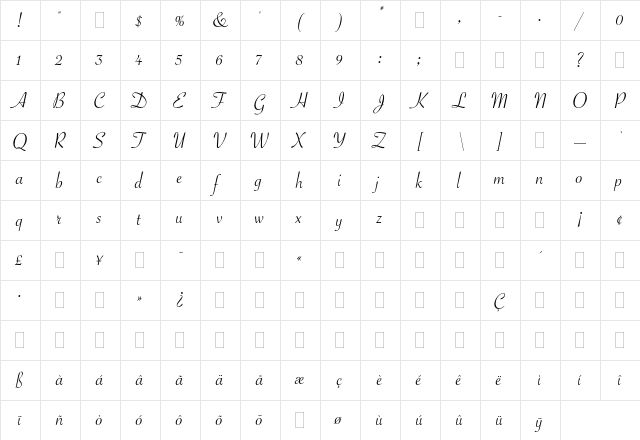
Savoye Plain
Design Context for Savoye Typeface
Savoye is a composed and adaptable typeface that performs quietly and consistently across a wide range of design contexts.